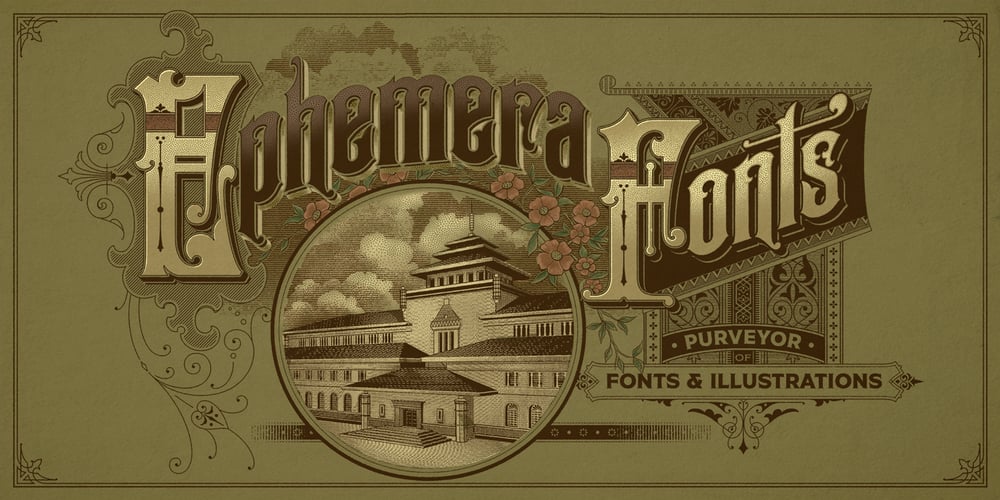
Ephemera Sickles Font Family was designed by Gilang Purnama Jaya, Ilham Herry and published by Ephemera Fonts. Ephemera Sickles contains 3 styles and family package options. A debut from the most anticipated vintage digital typefoundry by Gilang Purnama and Ilham Herry, who stucked their mind, body and soul back into the first era of 18th century. They build this intense visual-time machine that no one capable before. Started by the visual branding of the Ephemera Fonts, they bring every letters of it to the another level of journey. They called it Ephemera Sickles.Ephemera Sickles is a ornamented letterhead style typeface-inspired by the era of victorian (1800-1900) and this style was commonly used by engrossers at the turn of the century to embellish official documents, such as diplomas and other certificates. Carefully crafted for every single letters with the soul of Sickels Lettering, Spencerian, and some research from the Penmanship Journal book. The style is named after Charles Sickels, who headed the art department of Electro-Light Engraving Co. in New York City during the early 20th century.There’s no doubt that such a very strong presence typeface like Ephemera Sickles will bring a powerful identity to your visual project. Will be a perfect joint for a logo, visual branding, poster, beer label, packaging, classic bar decor, vintage hotel, et cetera.